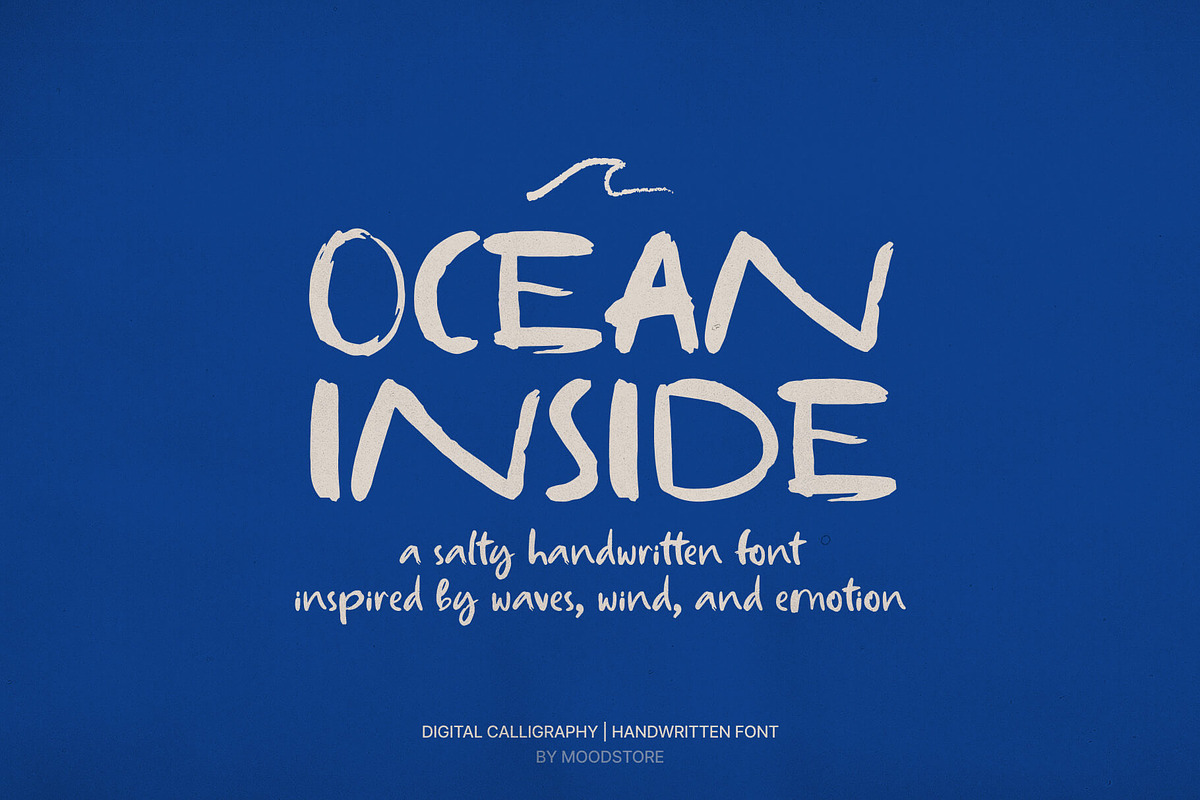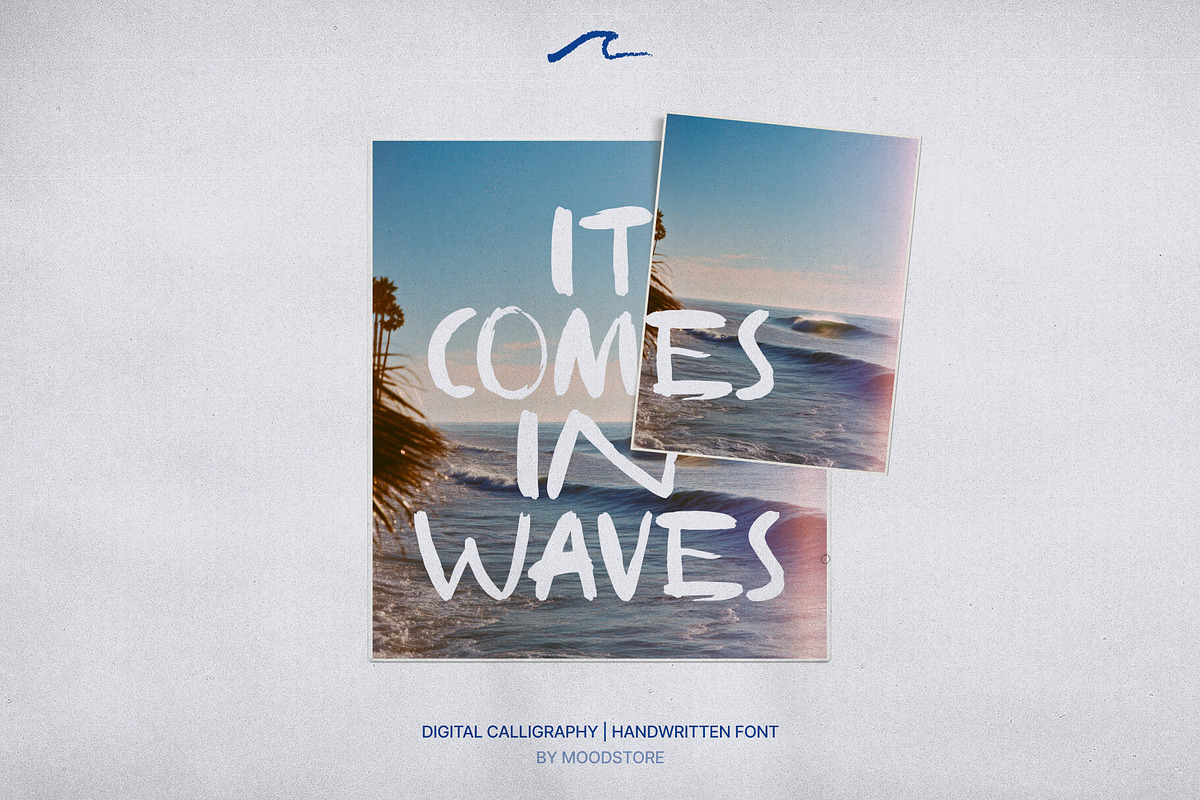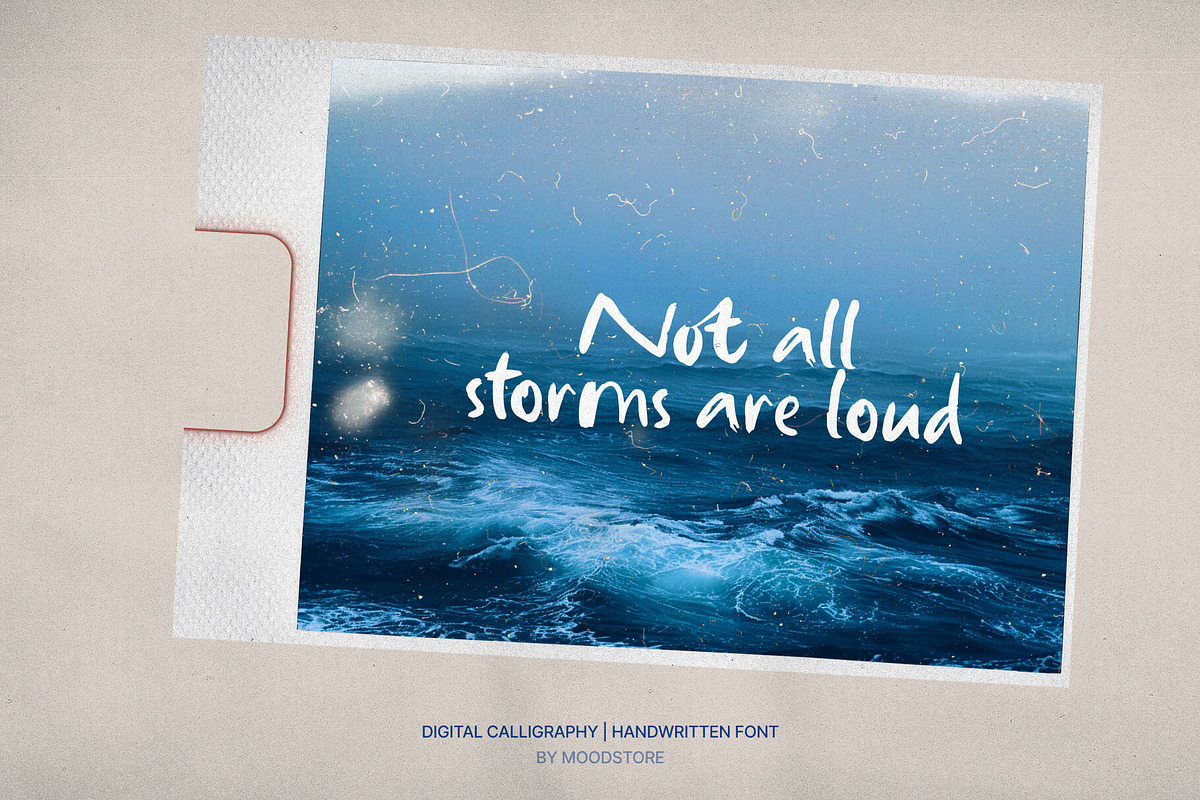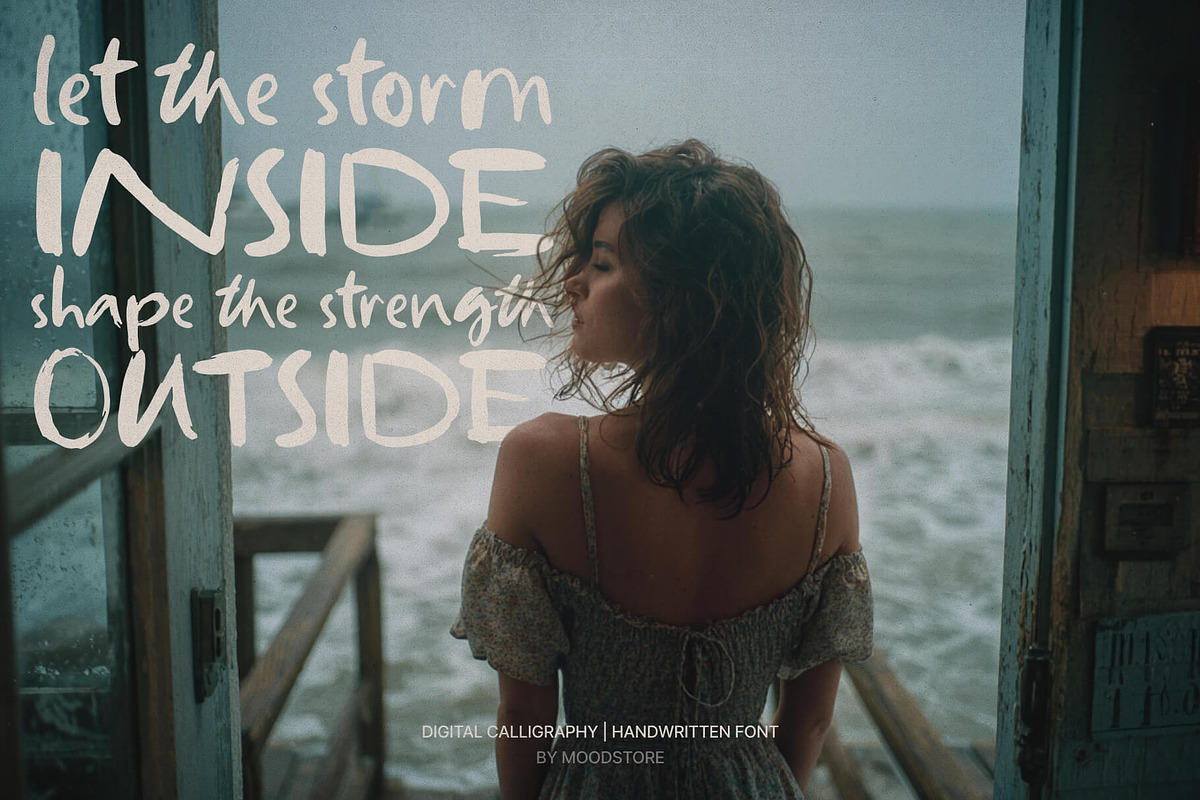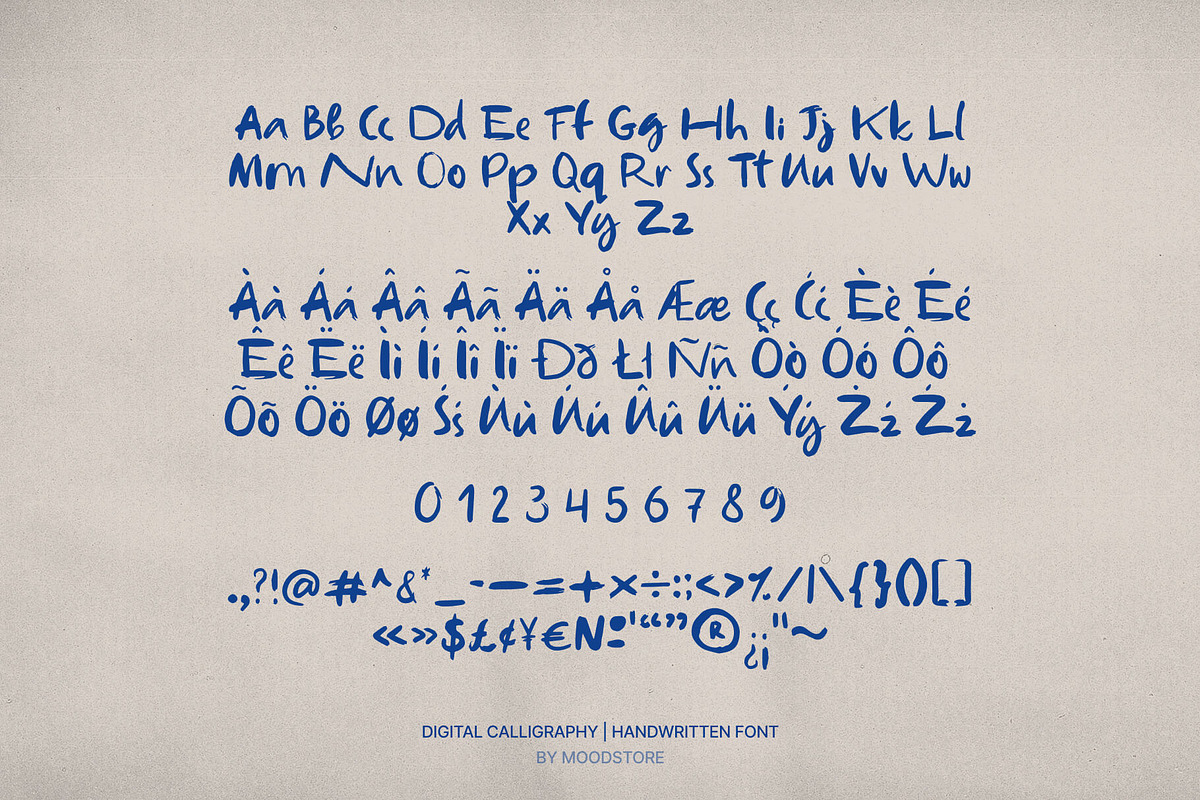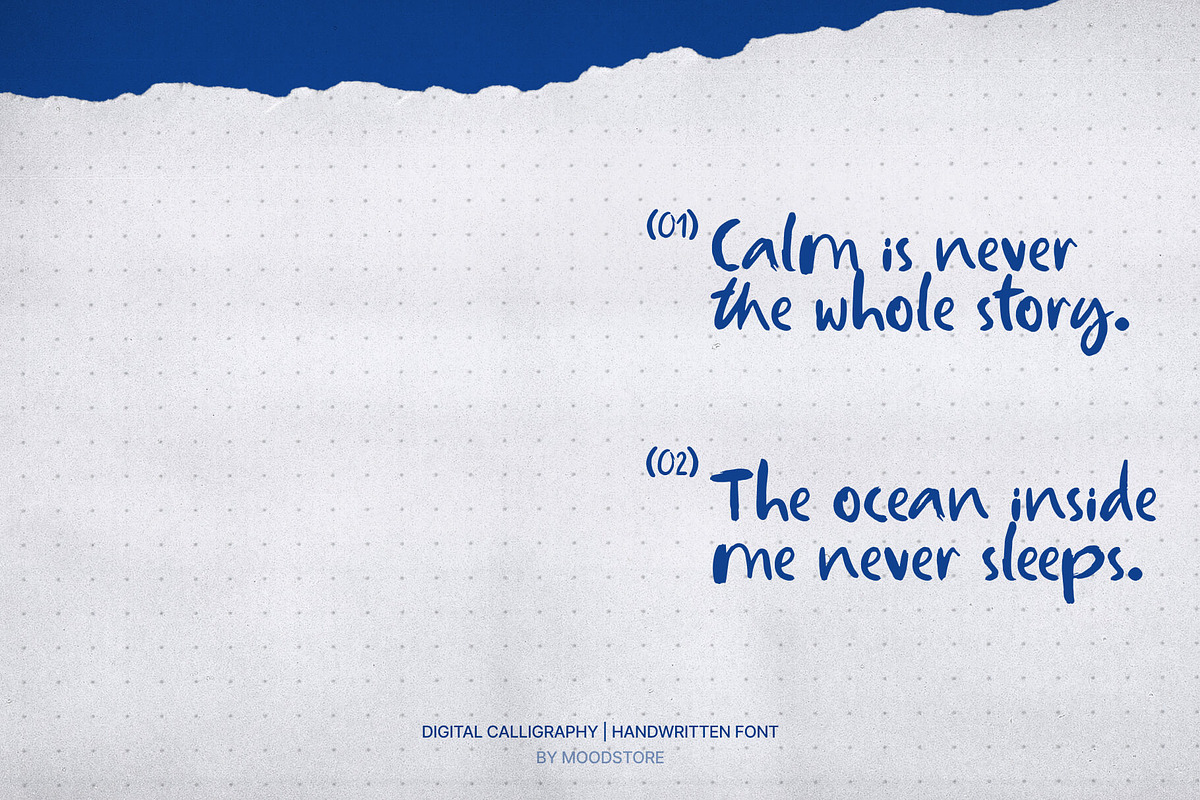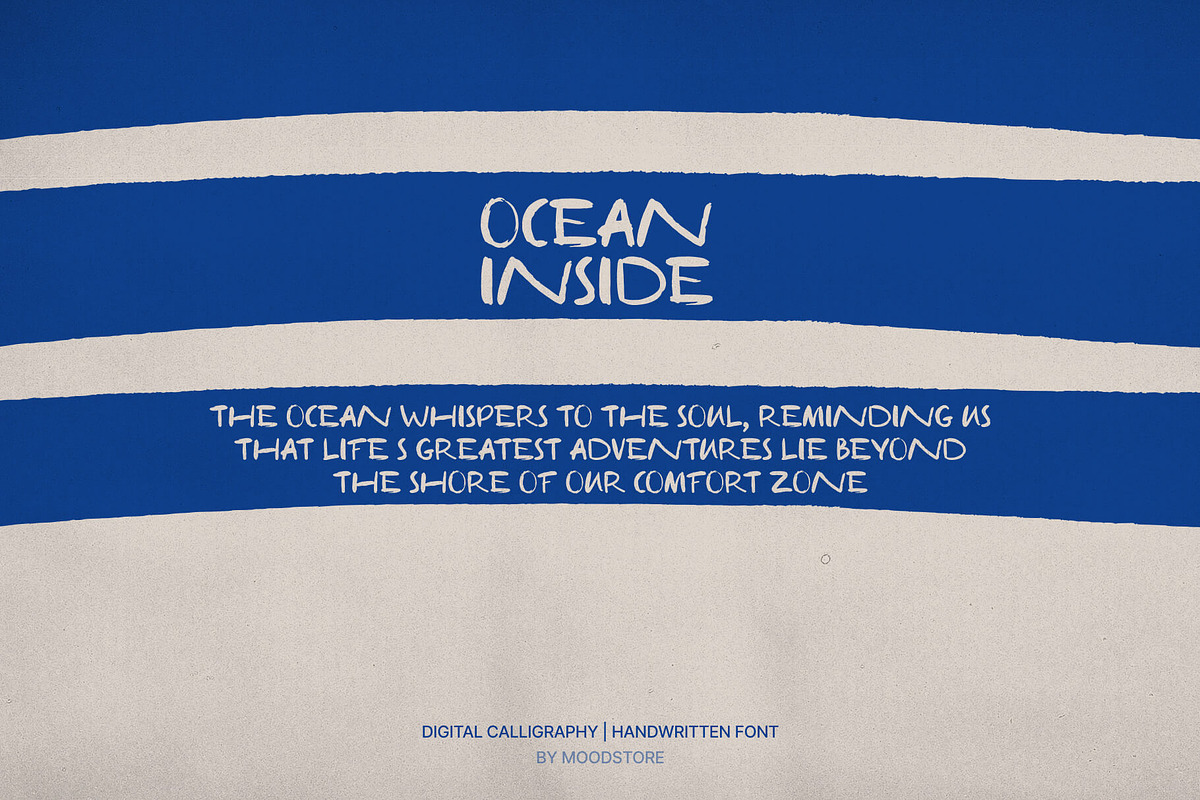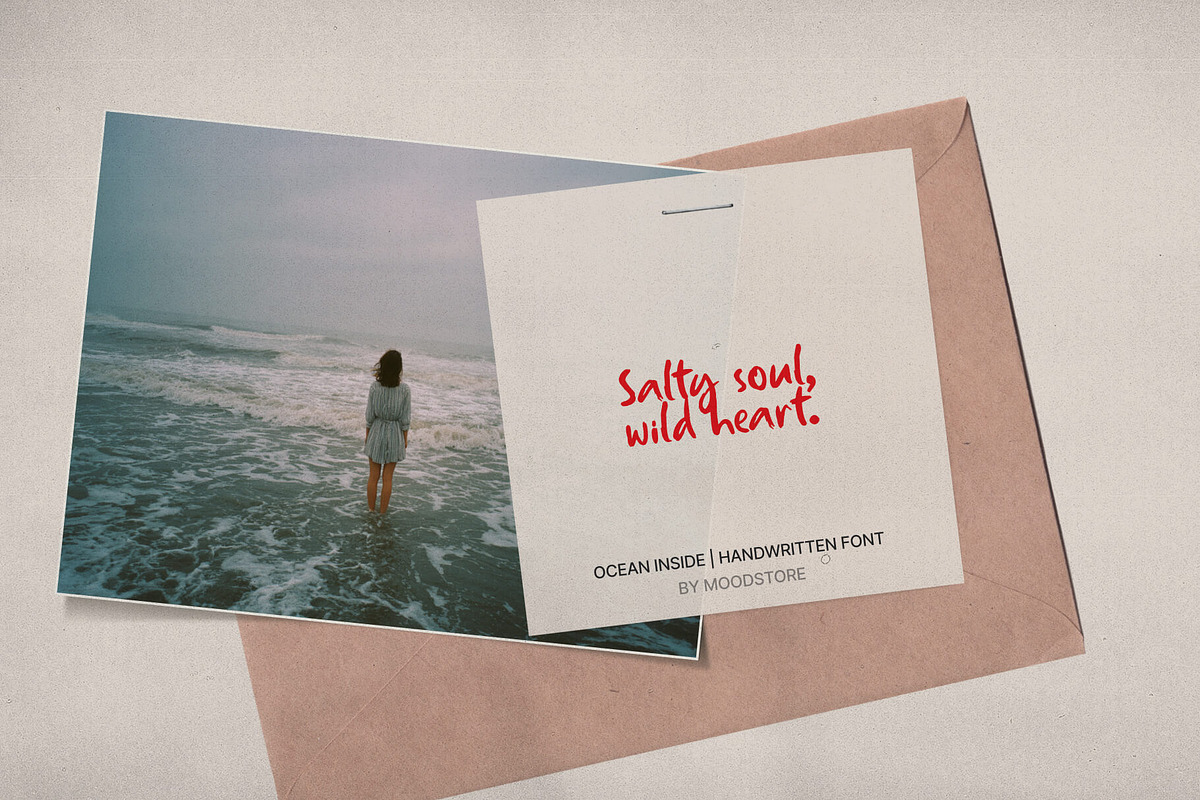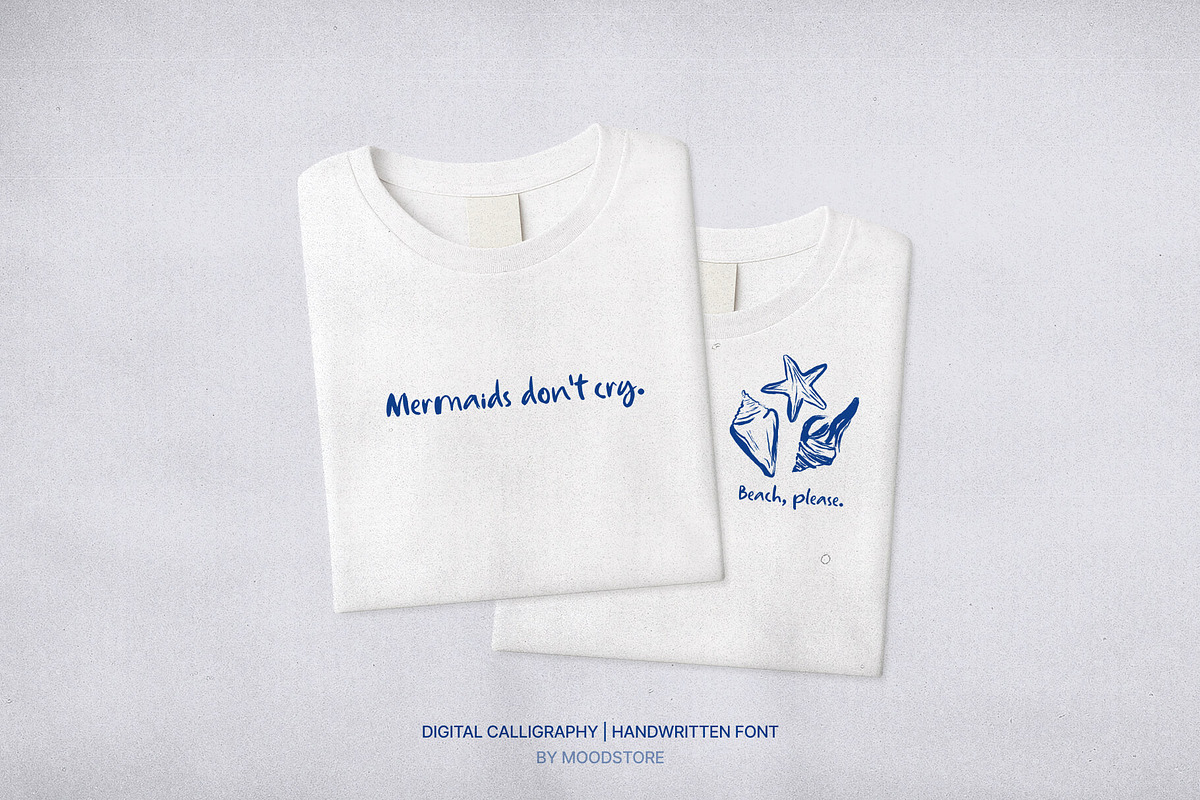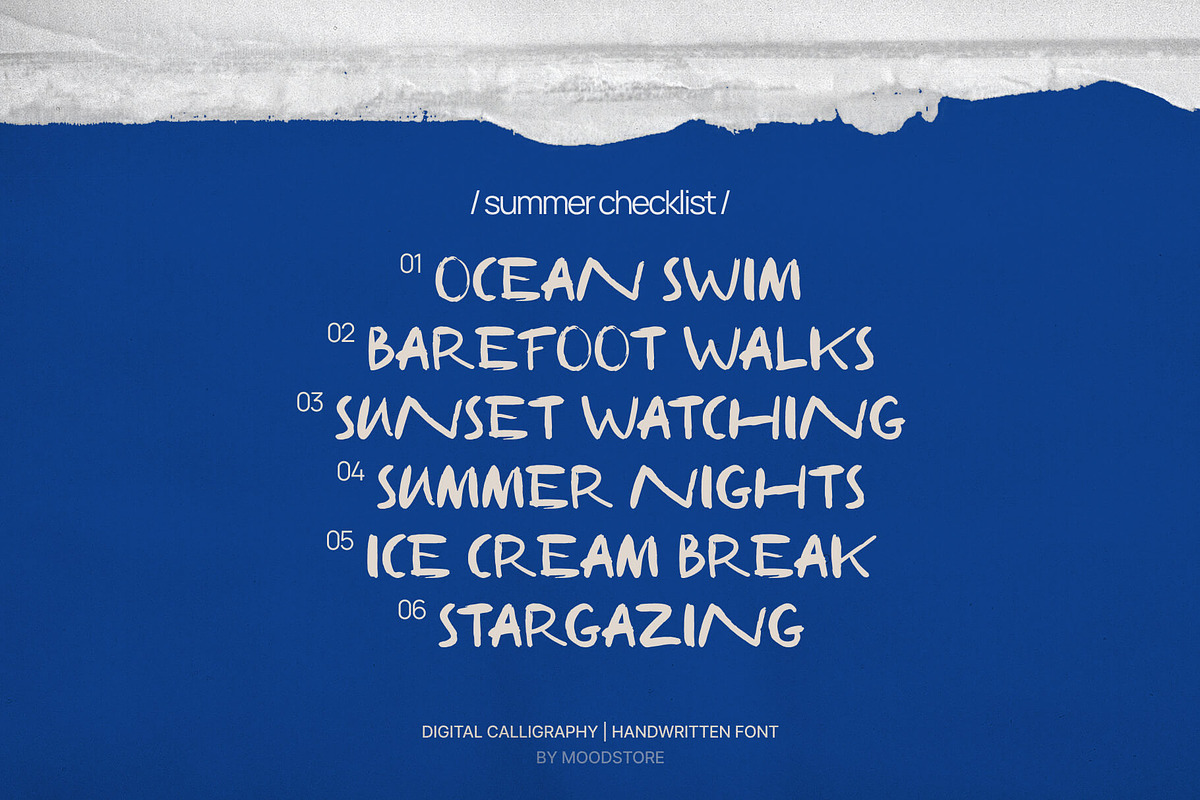
Ocean Inside Handwritten Font
Ocean Inside Handwritten Font inspired by waves, wind and emotion. Ocean Inside Font is emotional, textured, and full of character. Use it for moodboards, merch, quotes, photo overlays, packaging and anything that needs a bit of soul.
The font includes uppercase letters, numbers, and punctuation. Character set preview available in the images.